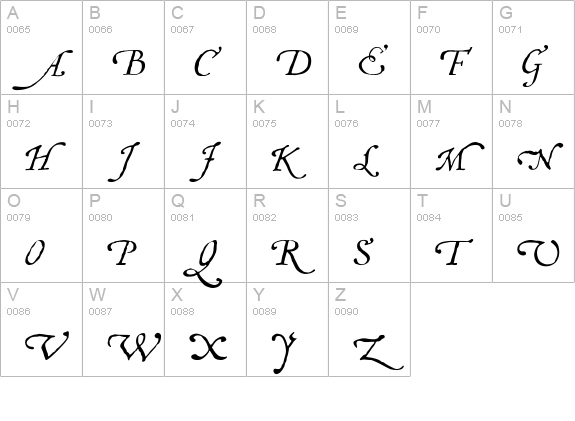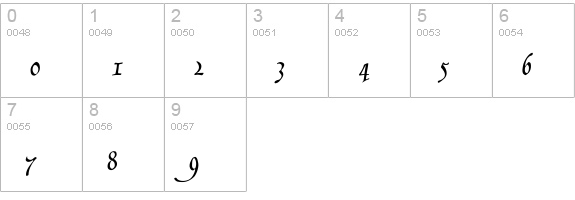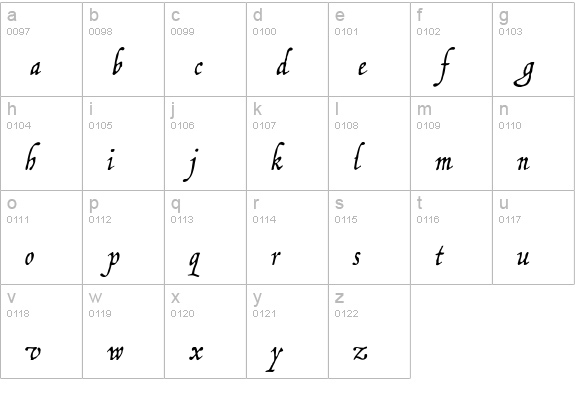
P22Grenville Font Details
P22Grenville font is a stunning display typeface that exudes elegance and sophistication. Its intricate details and graceful curves make it the ideal choice for projects that require a touch of class and refinement. With its unique blend of classic and contemporary design elements, P22Grenville font captivates the reader's attention, leaving a lasting impression. The versatility of P22Grenville font allows it to be used in a variety of contexts, whether it be for branding, advertising, editorial design, or any other creative endeavor. Its legibility and readability ensure that your message is conveyed clearly and effectively. But what truly sets P22Grenville font apart is that it is available for free download at FontsMarket.com. This means that you can access this exceptional typeface without any cost, allowing you to enhance your designs without breaking your budget. Download P22Grenville font today and experience the beauty and sophistication it brings to your projects. Whether you are a professional designer or a hobbyist, this font will undoubtedly elevate your work to new heights. Don't miss out on this incredible opportunity to enhance your creative endeavors with P22Grenville font, available for free at FontsMarket.com.